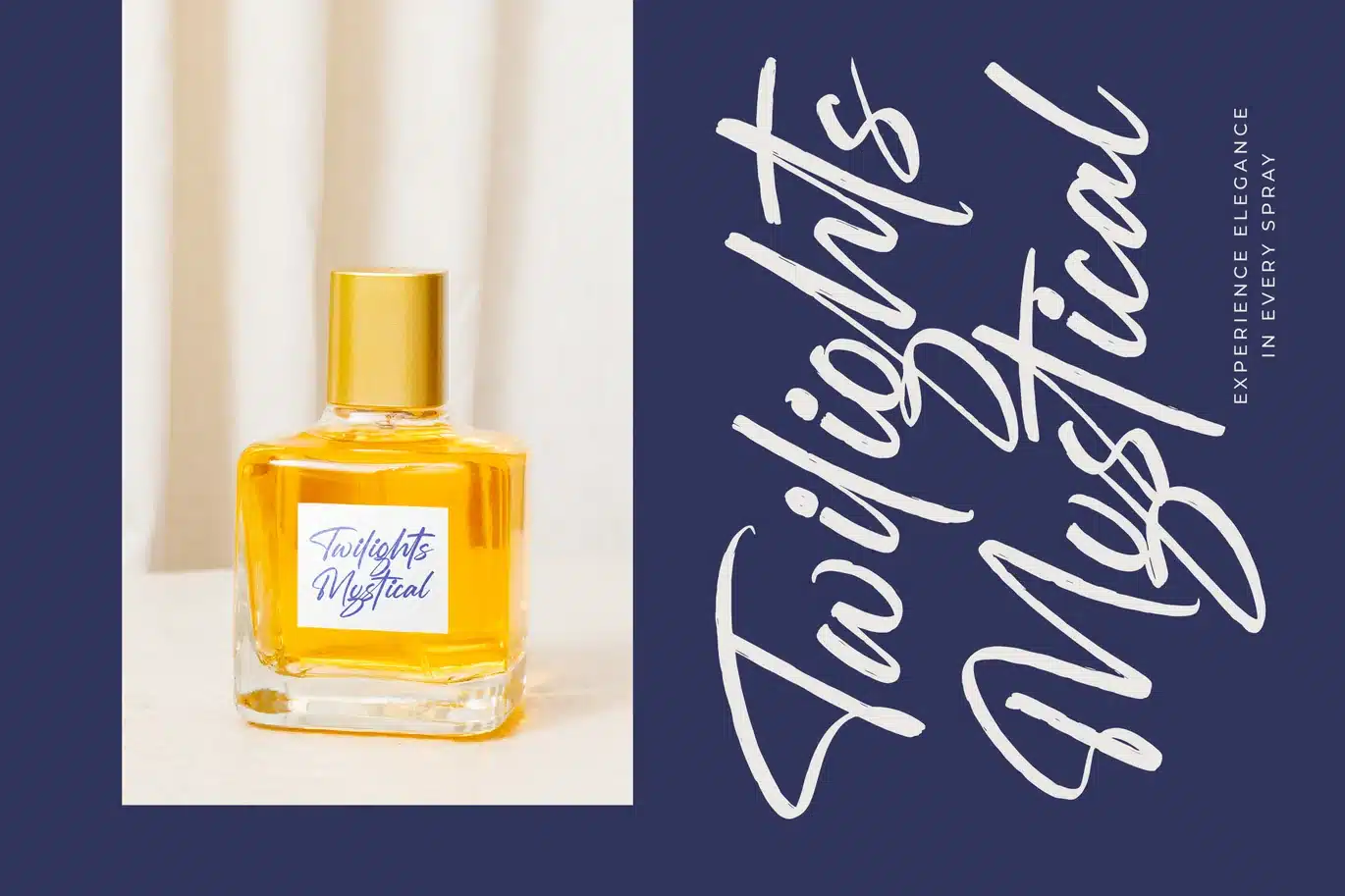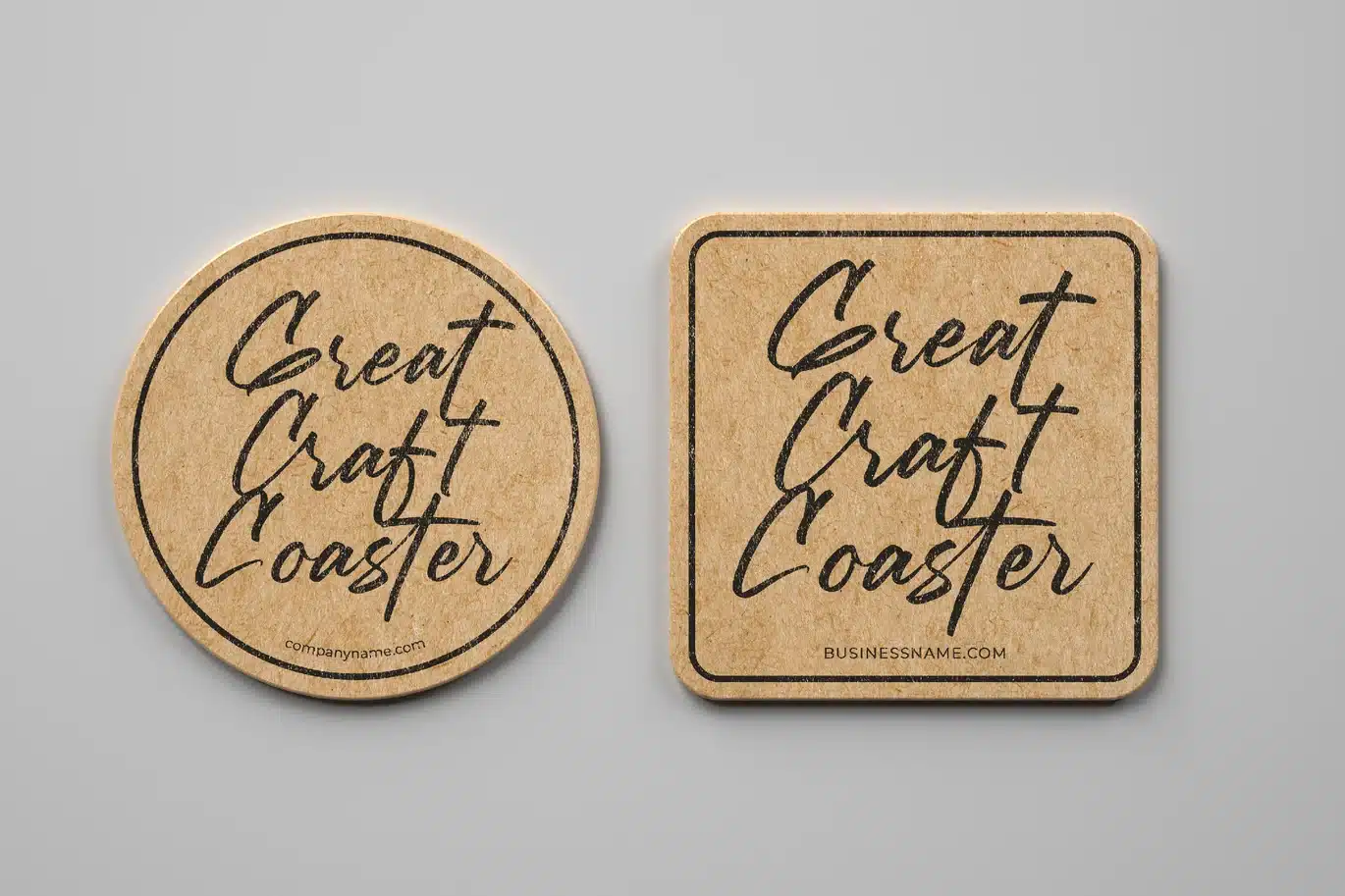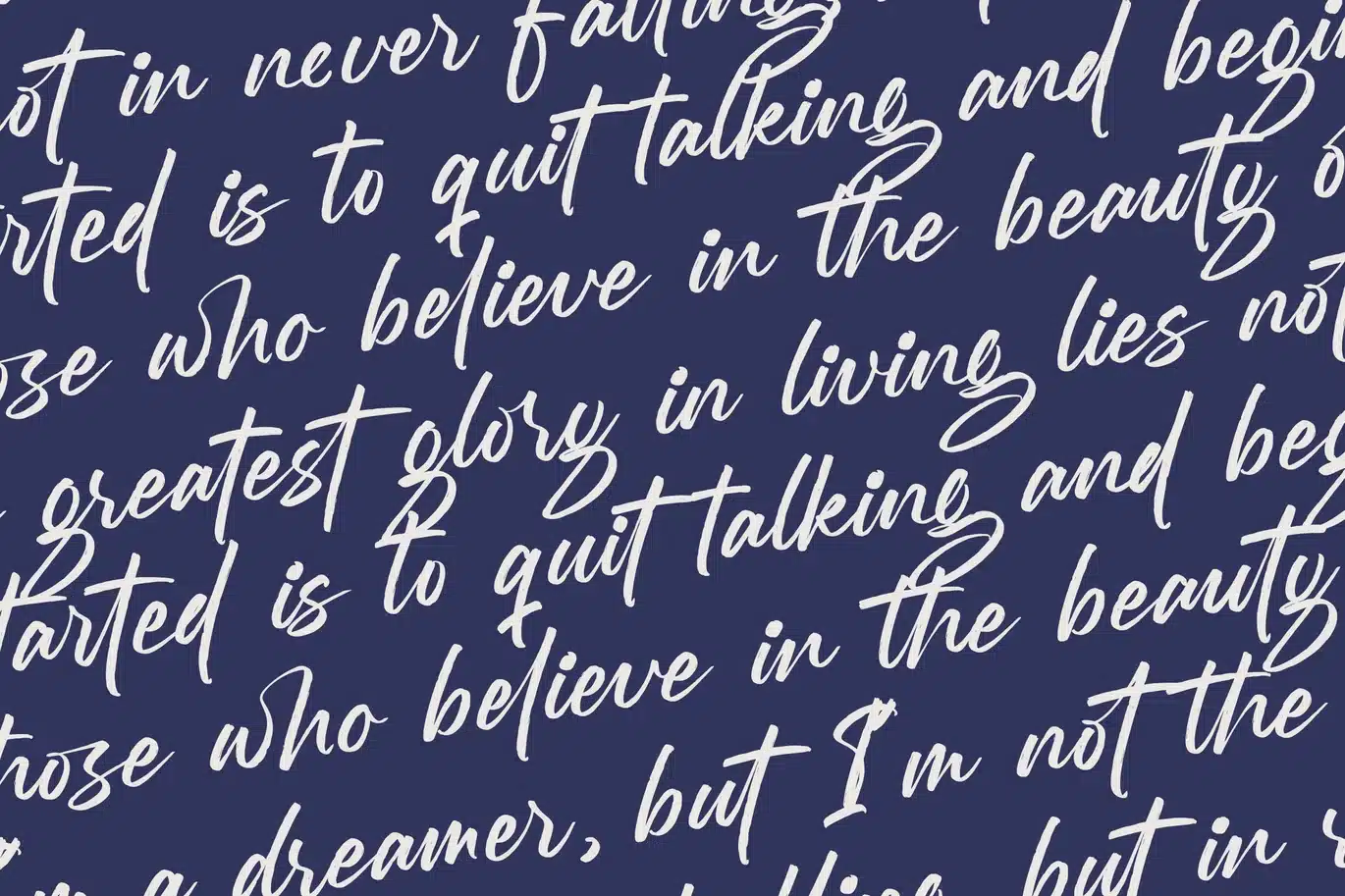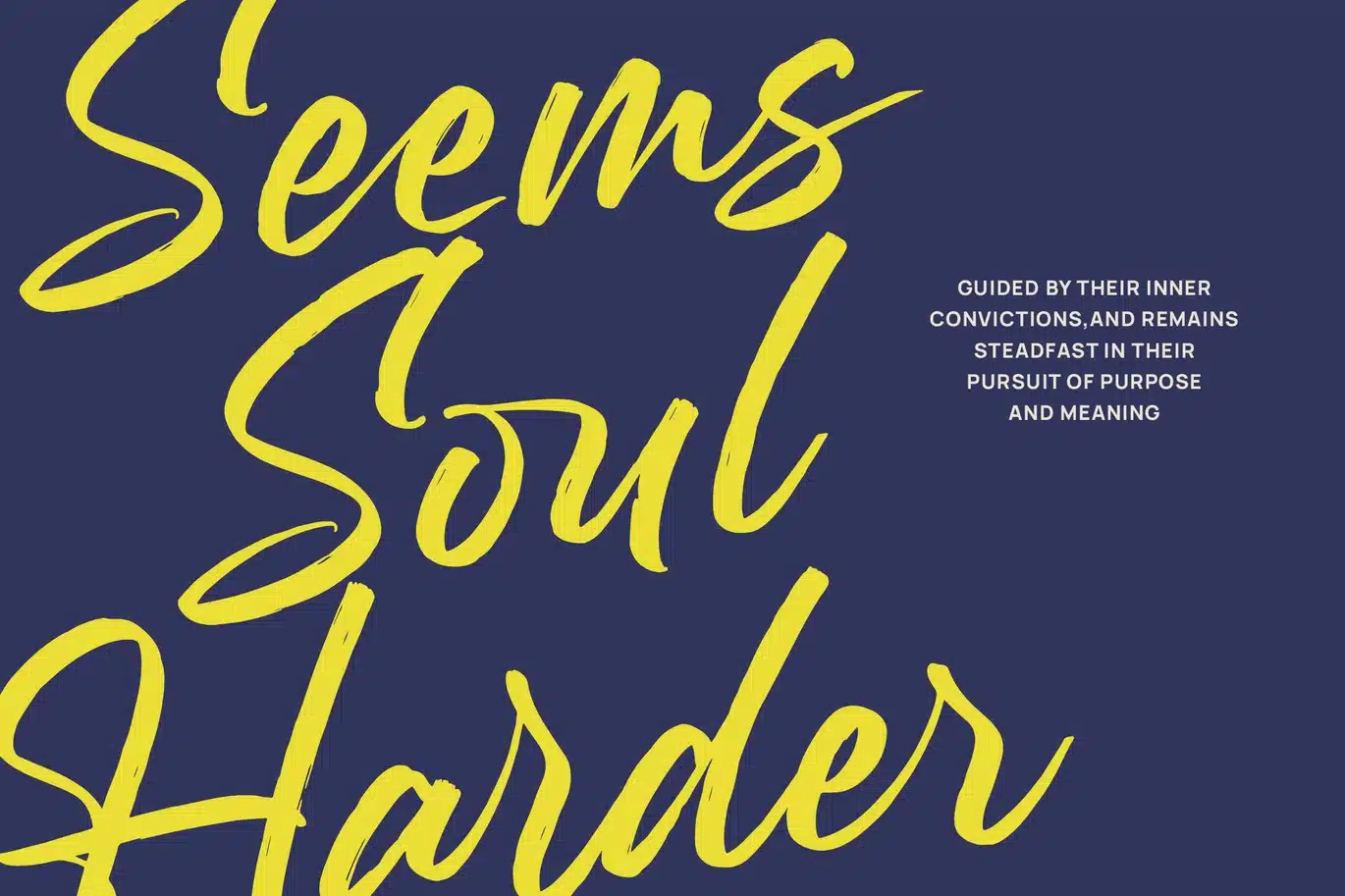
Mention Roberto – Modern Brush Font
Mention Roberto - Modern Brush Font
Ignite your designs with the vibrant energy of Font Mention Roberto - Modern Brush Font Script, a typeface crafted to command attention. This modern brush script captures the spontaneous elegance of hand-lettering, delivering a powerful yet approachable aesthetic. It’s perfect for projects demanding an authentic hand-crafted aesthetic with a contemporary edge, ensuring your message resonates with dynamic visual appeal and genuine charm.
Discover boundless creative possibilities with the meticulous design of Font Mention Roberto - Modern Brush Font Script. Featuring a rich set of 26 alternates and an extensive 175 ligatures, alongside 8 elegant swashes, this font offers unparalleled customization to perfectly fit your vision. Its fluid strokes and natural textures provide an expressive typography experience, ensuring every design feels uniquely handcrafted and irresistibly engaging.